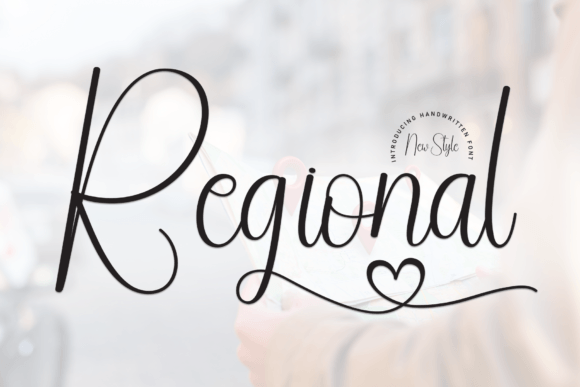
Welcome to the world of Regional - the epitome of handwritten elegance, where charm and character dance together in perfect harmony! Regional's flowing script is a visual symphony, a captivating melody that draws the eye and captivates the heart. It's the perfect font for expressing your love and creating memories that will last a lifetime.
Let Regional grace your wedding invitations, transforming them into enchanting works of art. Its playful curves and delicate flourishes will add a touch of whimsy and romance to your special day. Envision your guests oohing and aahing as they receive these exquisite invitations, a testament to the love and attention to detail you've poured into every aspect of your celebration.
Regional is a versatile performer, equally at home in the world of cards, posters, and logos. Its friendly and approachable nature makes it perfect for connecting with your audience, leaving a lasting impression that lingers in their minds. Picture your business cards adorned with Regional's enchanting script, a subtle yet powerful statement of your creativity and professionalism.
So, why settle for ordinary when you can embrace the extraordinary? Step into the realm of Regional and let your imagination soar. Transform your designs into works of art, leaving your audience spellbound and yearning for more. Regional is more than just a font; it's an experience, a journey into a world of beauty and charm.